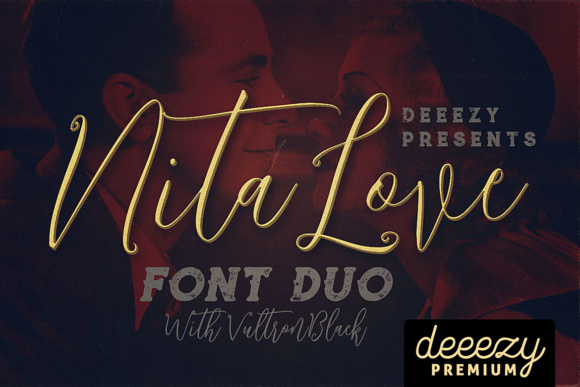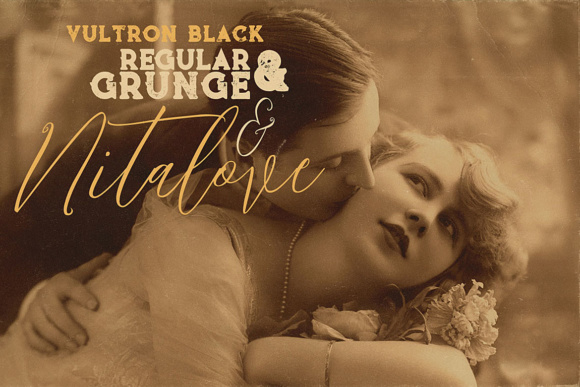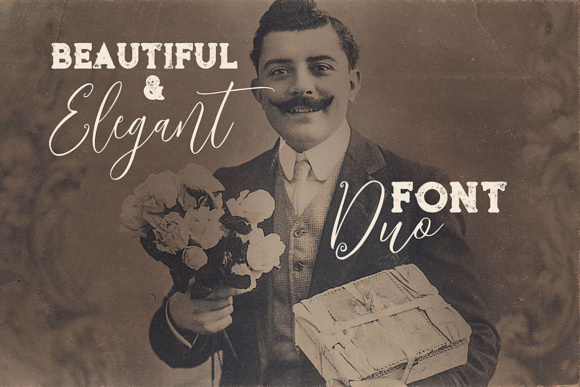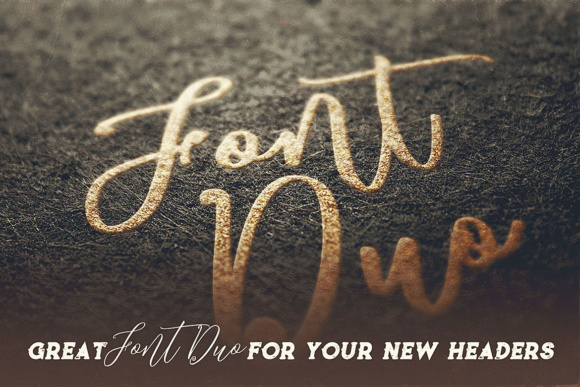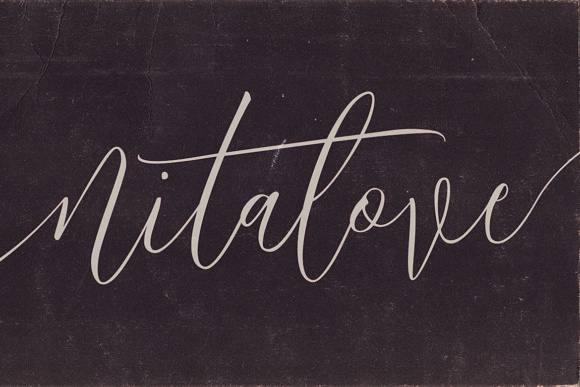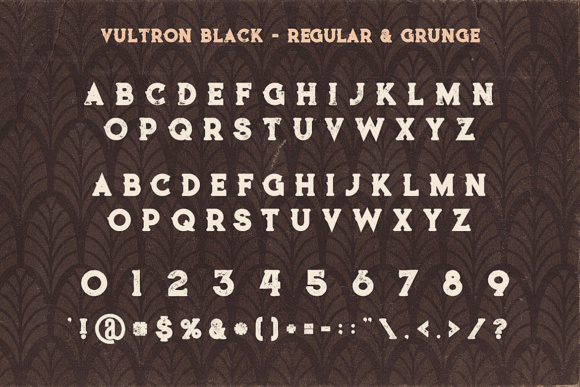
Nitalove Font
About Nitalove Font
Nitalove is a gorgeous, elegant vintage font that works well for displays and print projects. This is a download for two fonts, the Nitalove script font and Vultron, an equally elegant script option. This font duo is a great way to bring some classiness to your projects.